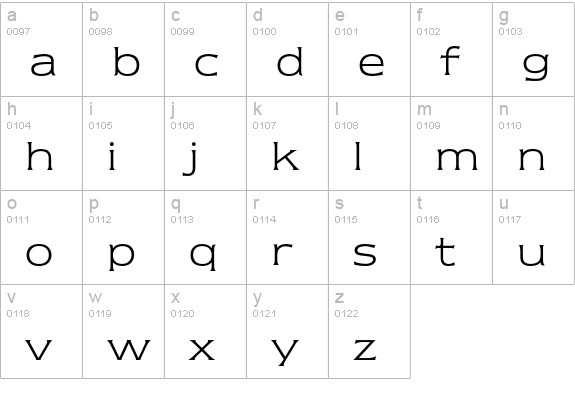
Newtext Light is a refined, elegant variant in the Newtext typeface family \xE2\x80\x94 well suited to elegant body text, refined sub-headings, and luxury branding.
Introducing Newtext Light font - a versatile and elegant typeface that exudes a sense of modernity and sophistication. With its clean lines and delicate curves, this font is perfect for a wide range of design projects, from branding to editorial design. The Newtext Light font strikes the perfect balance between readability and style, making it ideal for both digital and print applications. The best part? Newtext Light font is available for free download at FontsMarket.com. Simply visit the website to access this beautiful typeface and enhance your creative projects with its timeless appeal. Don't miss out on the opportunity to add Newtext Light font to your font library today!